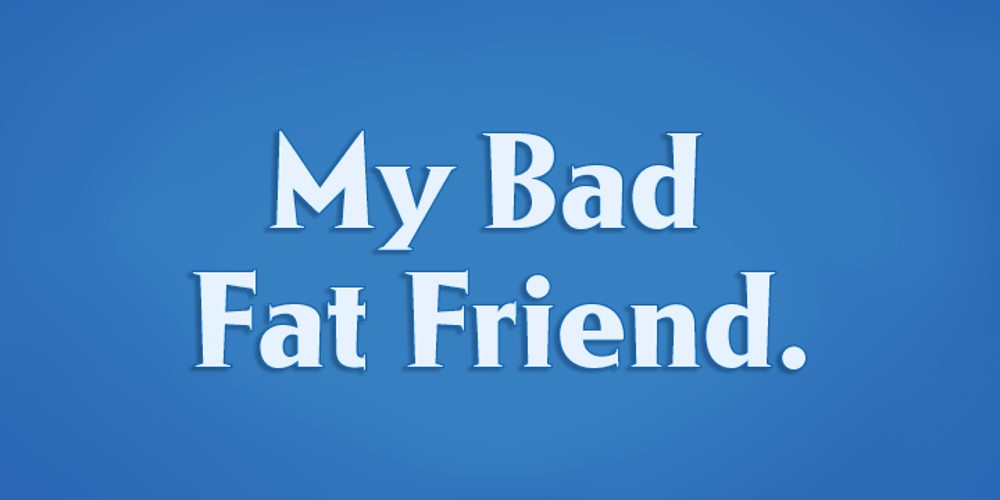
Taiko
Taiko font
Taiko Font Family was designed by Otto Arpke, Andreas Seidel and published by astype. Taiko contains 1 styles and family package options. Taiko is a strong headline typeface based on a design by Otto Arpke from 1928. Taiko Std is the basic version with 235 glyphs. The full version with over 650 glyphs includes the following OpenType features: – central European glyphs – small caps – tabular & mediaeval numerals – dynamic fractions